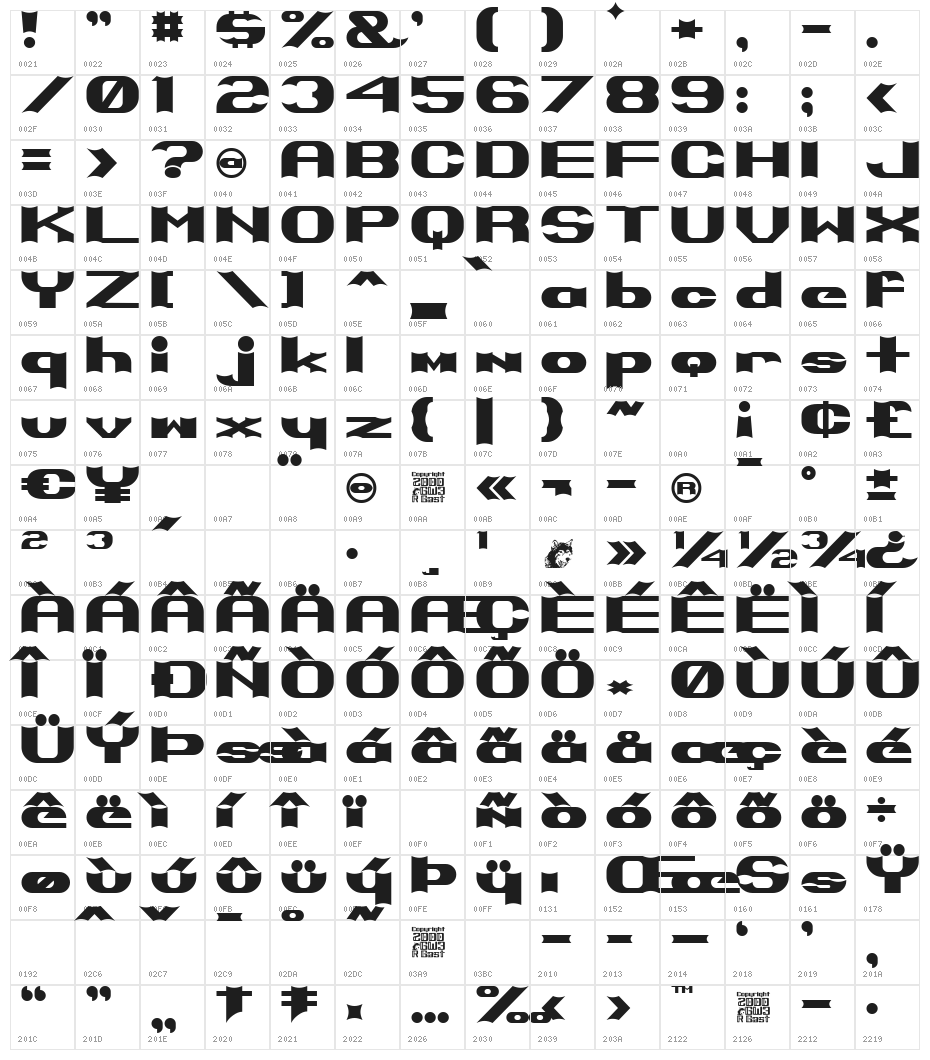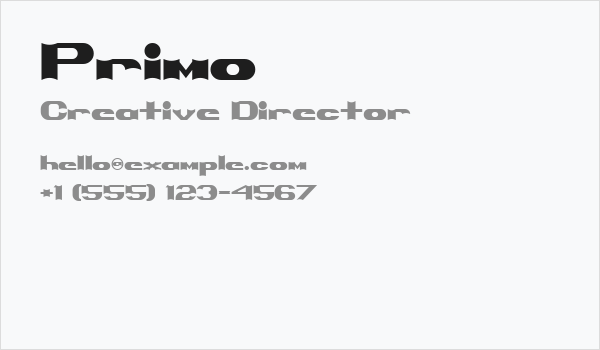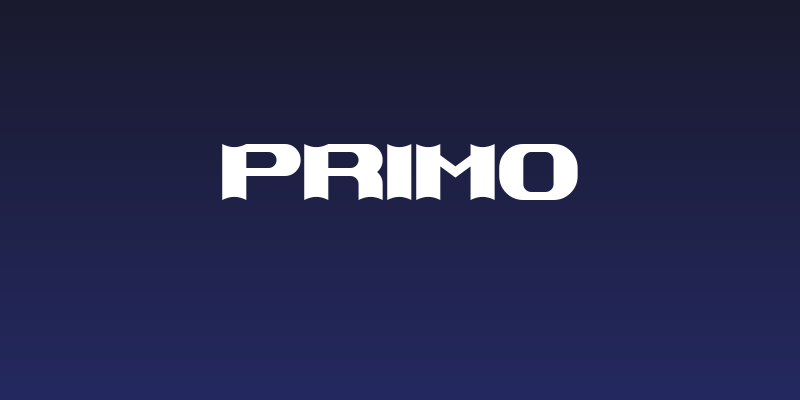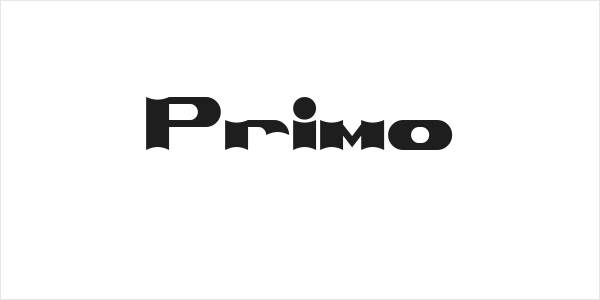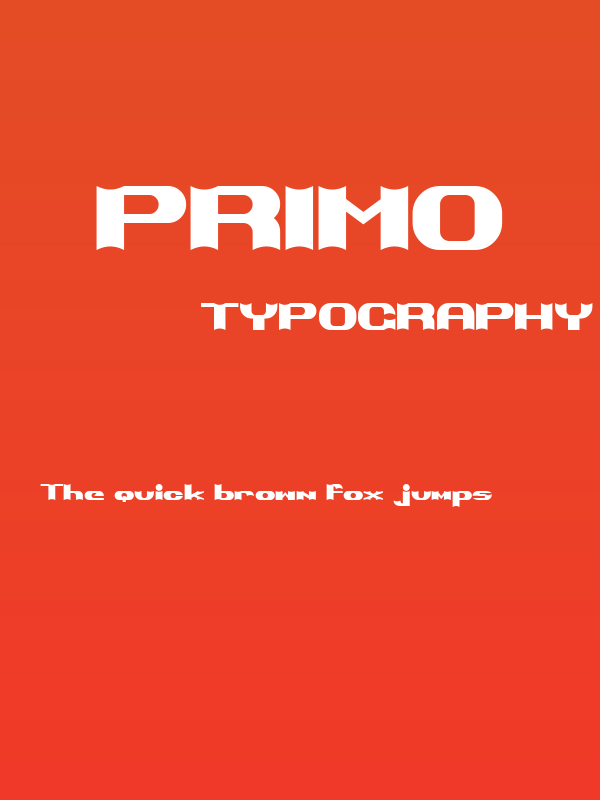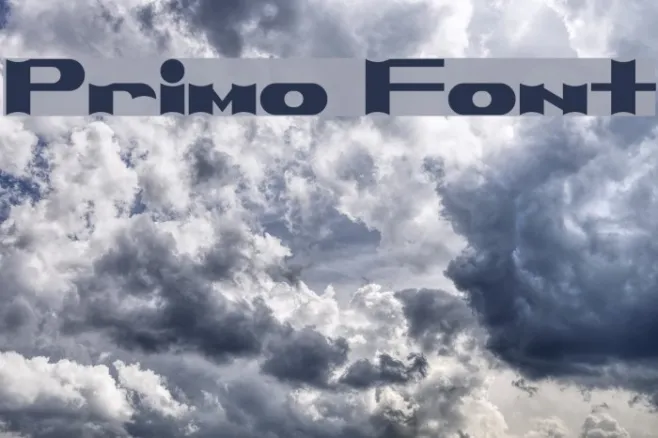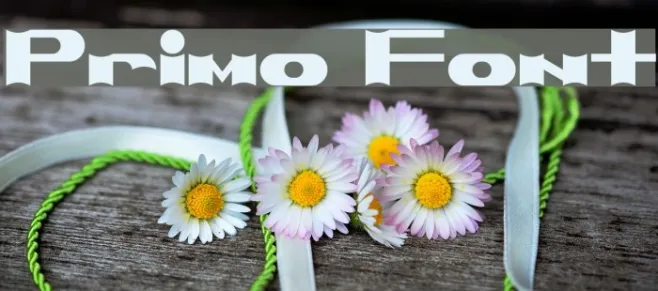
Primo Font
Primo Description
This font features a bold and striking design with a futuristic and geometric aesthetic. The characters are constructed with sharp angles and unique cutouts, creating a dynamic and visually engaging appearance. The uppercase and lowercase letters maintain a consistent style, with a strong emphasis on horizontal and vertical lines. The numerals and special characters follow the same design principles, ensuring uniformity across all glyphs. This font is ideal for projects that require a modern and edgy look, making it suitable for branding, posters, and digital media.
| Proposed Projects | Ideal for branding, posters, digital media, and any project needing a modern, edgy look. |